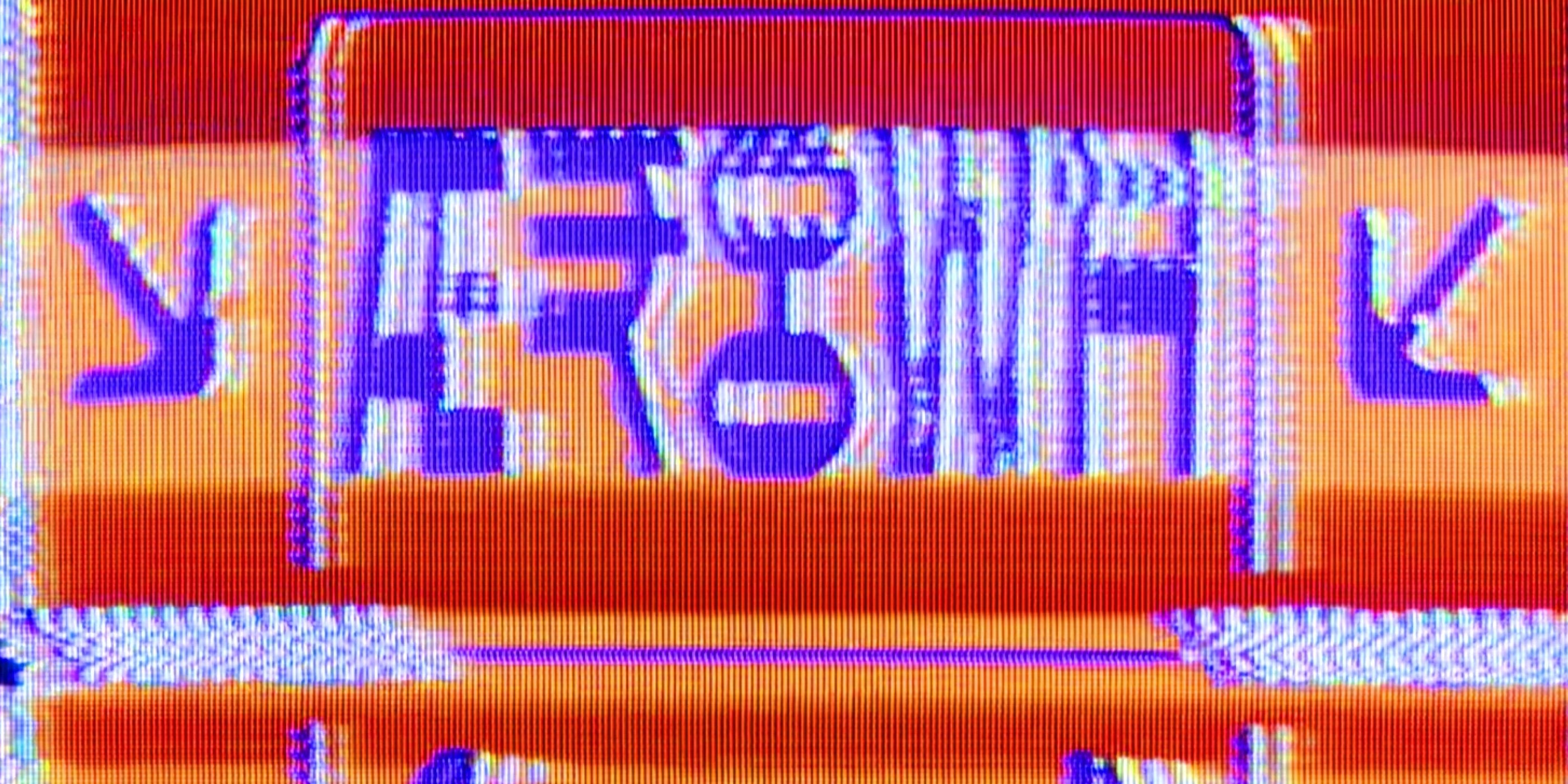
Born from the chaotic dance between human intention and artificial intelligence's persistent error
2049
9 styles
Variable π€
Introducing βOT2049" β a typeface born from the chaotic dance between human intention and artificial intelligence's persistent error.
In a world where technology often strives for perfection, 2049 embraces the beauty in imperfection, embodying the struggle of an AI striving to create order from chaos, only to stumble upon the unexpected and mesmerizing. With each character, glitches emerge as strokes warp, lines distort, and shapes fragment, showcasing the unpredictable journey of creation through the lens of artificial intelligence.
This typeface challenges conventional notions of uniformity, inviting designers to explore the captivating nuances of digital anomalies. Welcome to the realm where imperfection meets innovation β welcome to OT2049.
The question remains...
Was this typeface really made by an Artificial Intelligence?
In a world where technology often strives for perfection, 2049 embraces the beauty in imperfection, embodying the struggle of an AI striving to create order from chaos, only to stumble upon the unexpected and mesmerizing. With each character, glitches emerge as strokes warp, lines distort, and shapes fragment, showcasing the unpredictable journey of creation through the lens of artificial intelligence.
This typeface challenges conventional notions of uniformity, inviting designers to explore the captivating nuances of digital anomalies. Welcome to the realm where imperfection meets innovation β welcome to OT2049.
The question remains...
Was this typeface really made by an Artificial Intelligence?
9 Weights - 455 Glyphs